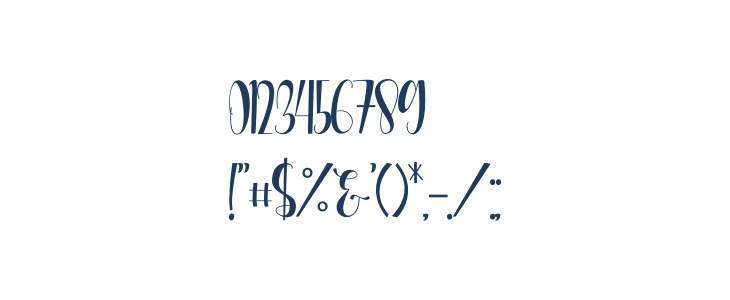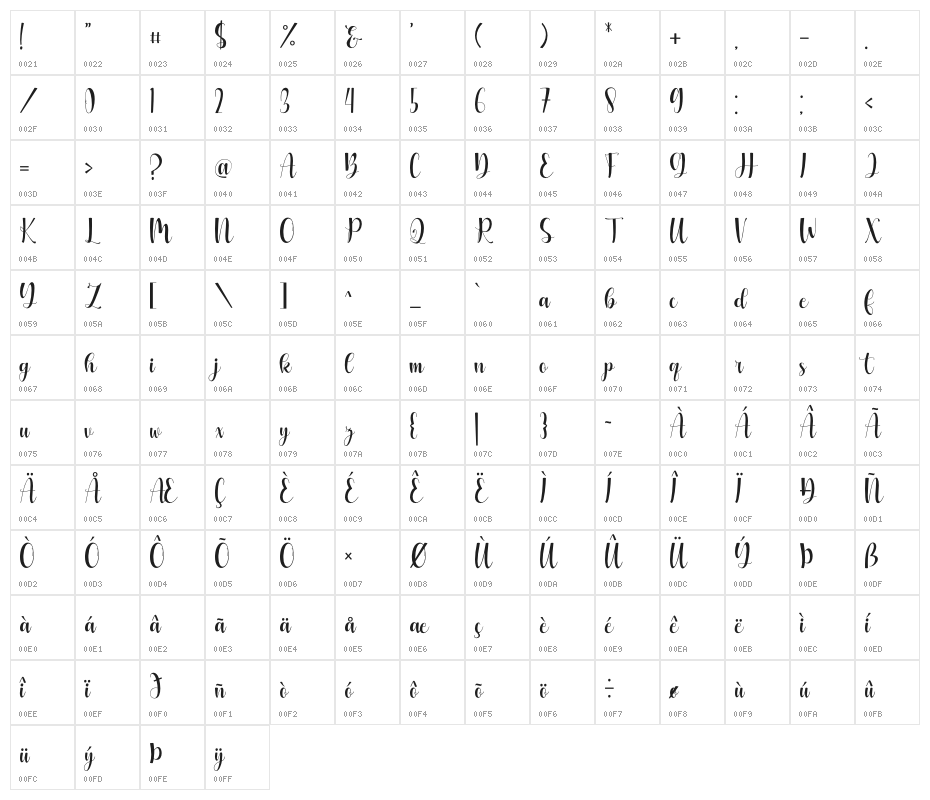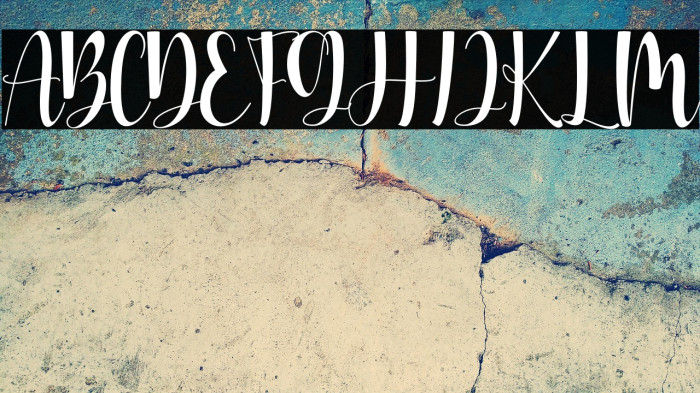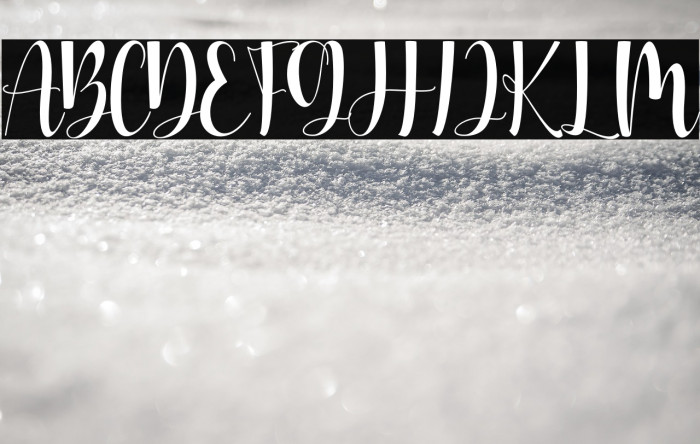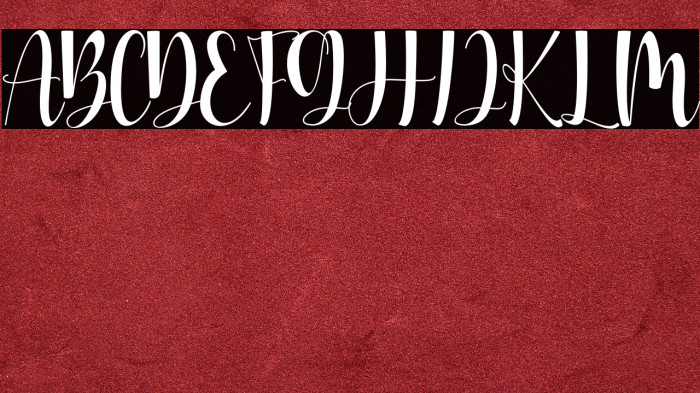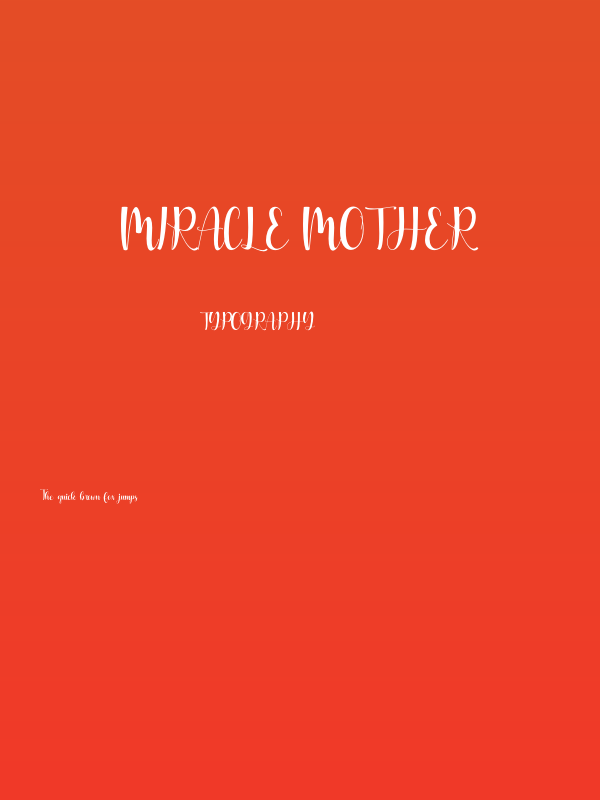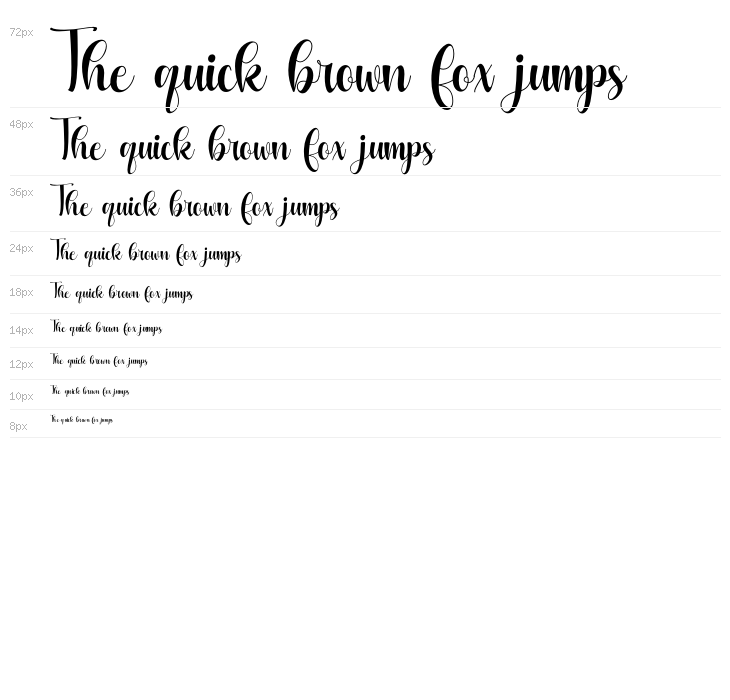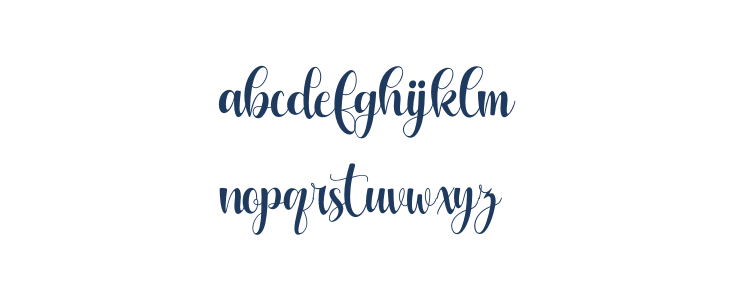
Miracle Mother Font
Miracle Mother Description
This font features an elegant, flowing script style with a modern twist. The uppercase letters are characterized by dramatic flourishes and loops, giving them a sophisticated and artistic appearance. The lowercase letters maintain a consistent flow, with some characters featuring unique swashes that add to the overall charm. The numerals are bold and slightly condensed, complementing the script style. Special characters are designed with the same attention to detail, ensuring a cohesive look across all glyphs. This font is perfect for projects that require a touch of elegance and creativity.